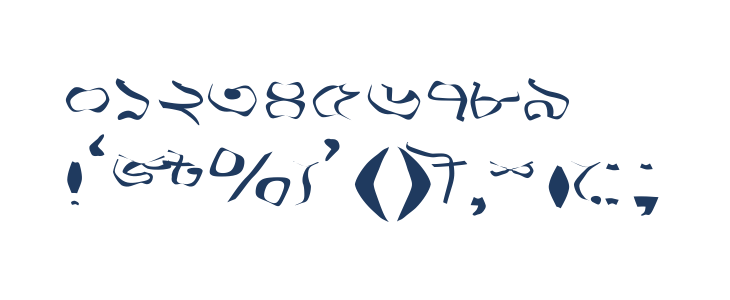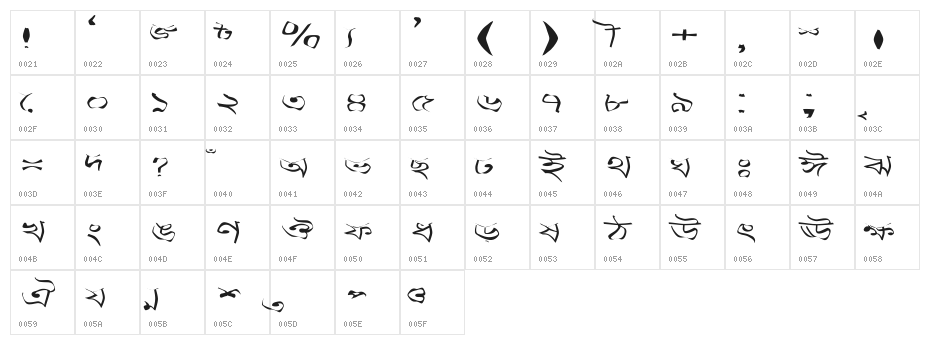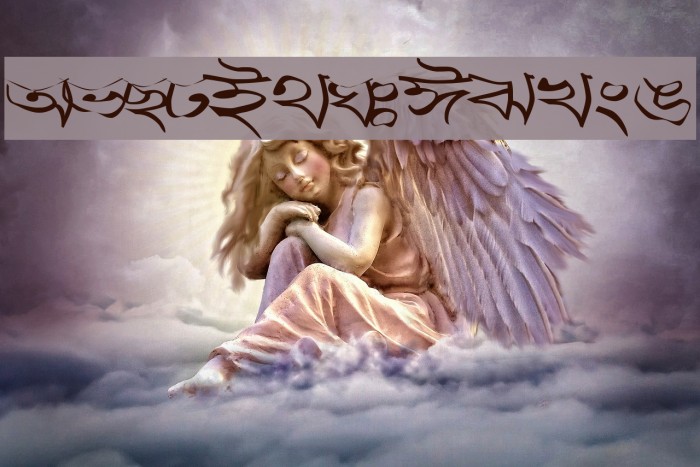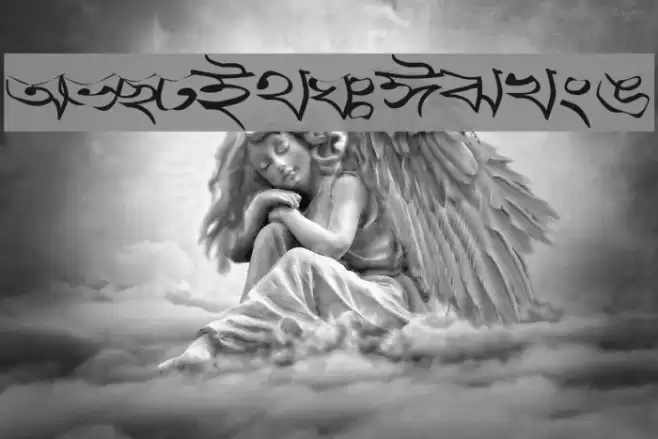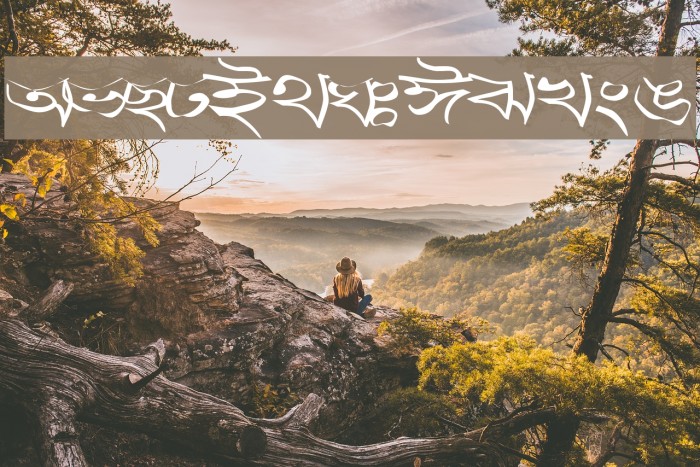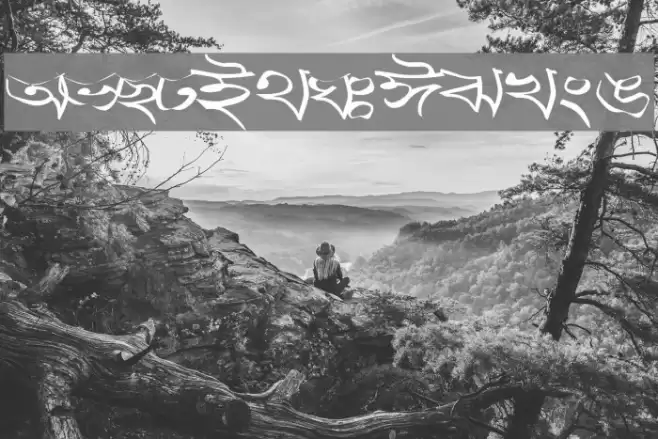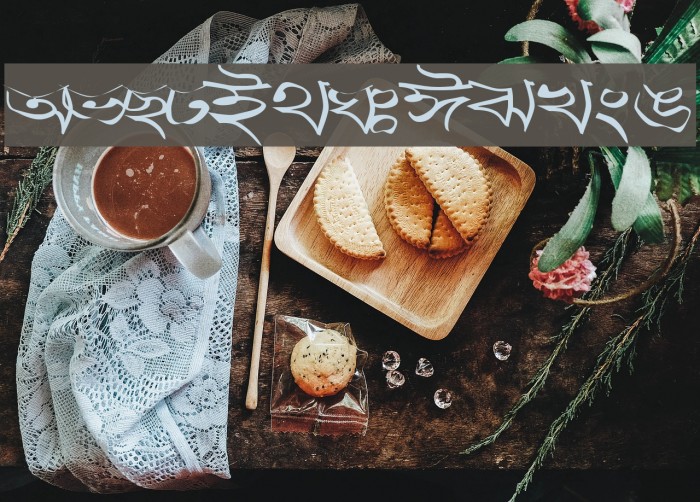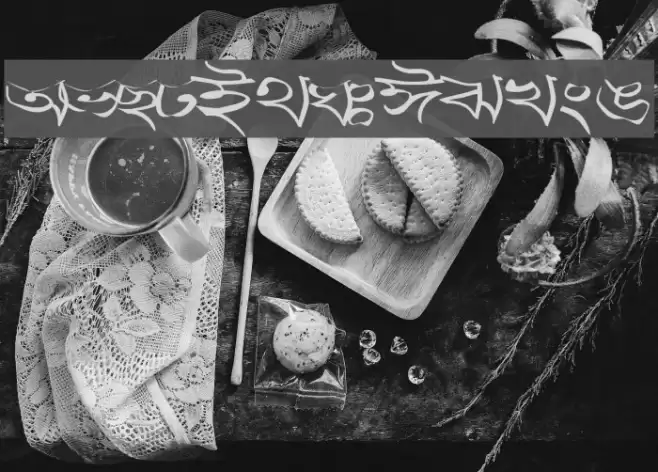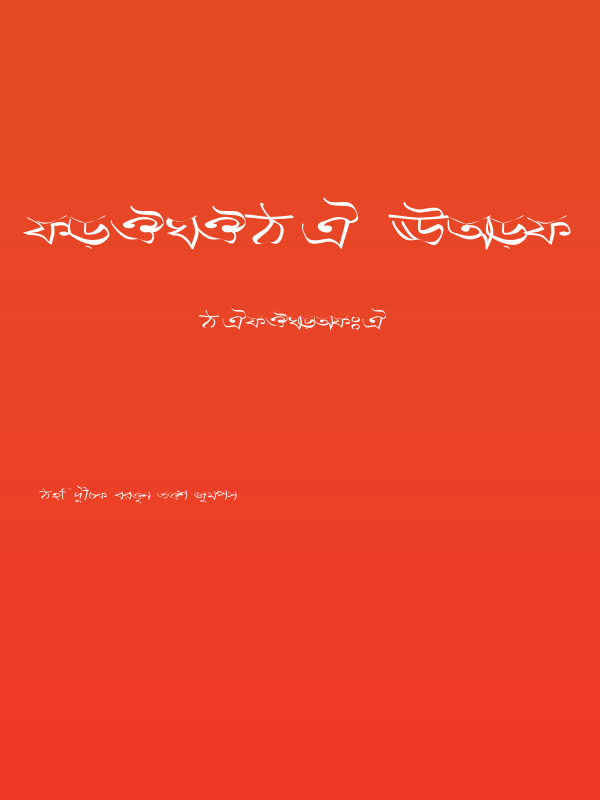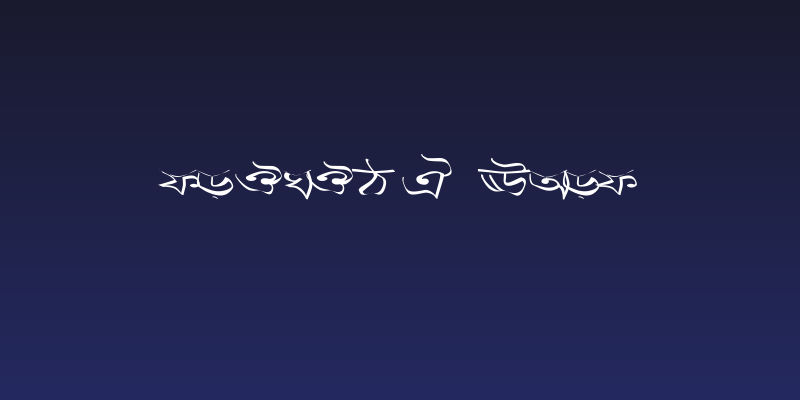
Progoty Warp Font
Progoty Warp Description
This font features a highly decorative and artistic style, characterized by its intricate and flowing letterforms. The characters exhibit a calligraphic influence, with sweeping curves and elaborate flourishes that create a sense of movement and elegance. The strokes vary in thickness, adding a dynamic contrast that enhances the visual appeal. This font's unique and ornate design makes it stand out, offering a distinct aesthetic that is both captivating and sophisticated. The overall appearance is reminiscent of traditional script styles, yet it maintains a modern twist through its bold and expressive forms.